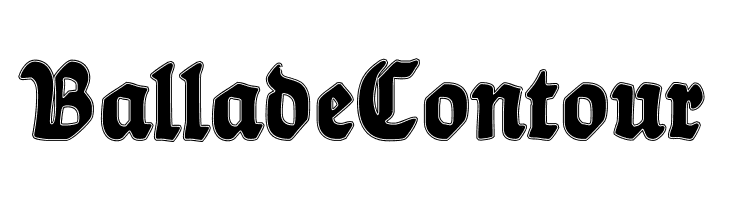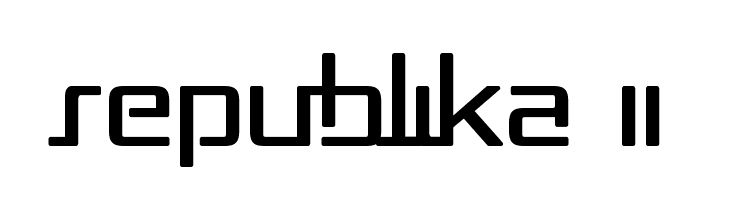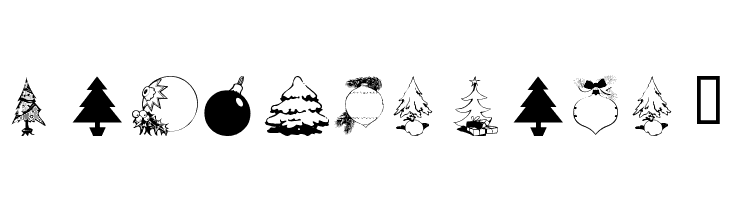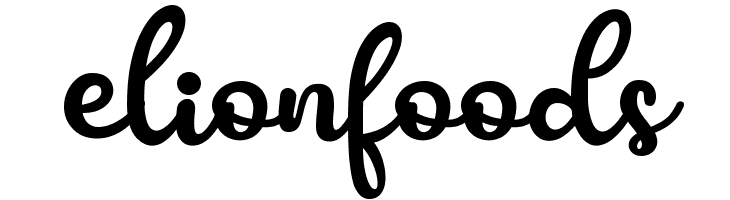
A bold, graffiti-style font with a three-dimensional effect and urban flair.
An elegant, flowing script font with a refined, handwritten style.
A bold, geometric, and abstract font with a futuristic, italicized style.
Extra condensed sans-serif font for Khmer script UI.
Traditional serif font with moderate contrast and elegant proportions.
A modern, monospaced typeface with clean lines and uniform spacing.
A lively and expressive handwritten font with fluid strokes and playful elegance.
A whimsical, playful font with thin strokes and dotted accents.
A casual, handwritten font with a playful and approachable style.
A light, italic font with a modern and elegant style.
A decorative, distressed font with an eroded, rugged appearance.
A bold, brush-style font with dynamic and expressive strokes.
A bold, geometric sans-serif font with clean lines and modern appeal.
A bold, brush-style font with dynamic and expressive strokes.
A bold, dynamic script font with flowing, cursive letters.
A bold, slanted font with thick strokes and a modern, assertive style.
A light, slab serif font with a subtle blur effect, blending traditional and modern styles.
A bold, geometric sans-serif font with outlined characters for a modern look.
A bold, fragmented font with a chaotic and distressed appearance.
A bold, handwritten font with a casual and energetic style.
A bold, artistic font with playful, irregular strokes and a hand-drawn feel.
A bold, playful font with a hand-drawn, dynamic style.
A decorative script font with elegant loops and swirls, offering a playful yet sophisticated style.
A futuristic, geometric font with a bold, modular design.
A modern, geometric font with bold, circular shapes and clean lines.
A whimsical, elegant cursive font with flowing, artistic strokes.
An elegant, flowing script font with graceful cursive letterforms.
A bold, futuristic font with a gradient effect and expanded geometric design.
A playful and quirky font with exaggerated curves and uneven strokes.
A hollow, geometric font with a modern, tech-inspired design.
A bold, dynamic font with a modern-vintage flair and sweeping strokes.
An elegant script font with ornate uppercase and flowing lowercase letters.
A festive, decorative font with playful holiday embellishments.
A bold, geometric font with a patchwork design and high contrast.
A bold, brush-style font with an edgy, dynamic appearance.